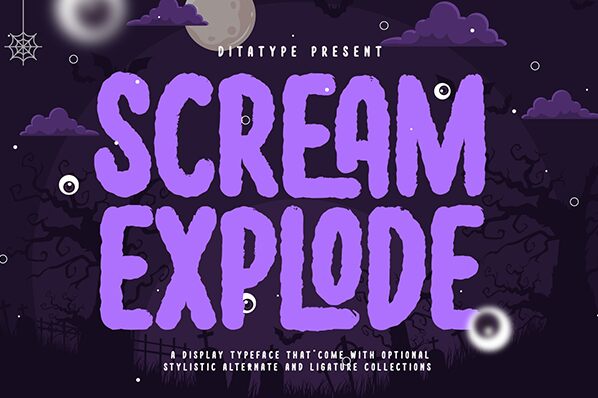
Scream Explode font by Ditatype is a striking display font that captures attention with its eroded, edgy design. This condensed font boasts bold, dramatic letters that seem to burst with energy, making it perfect for projects that need to convey intensity and impact.
Ideal for posters, album covers, and edgy branding, Scream Explode’s unique texture offers a gritty aesthetic appeal. Its free font availability provides an excellent opportunity for designers seeking a dynamic typeface without financial constraints.